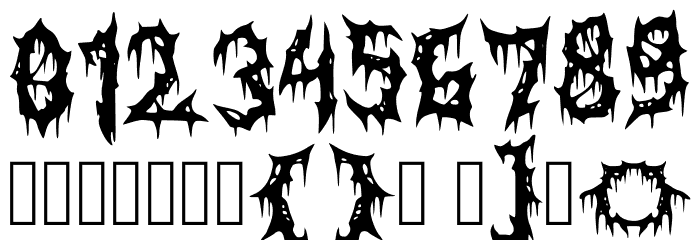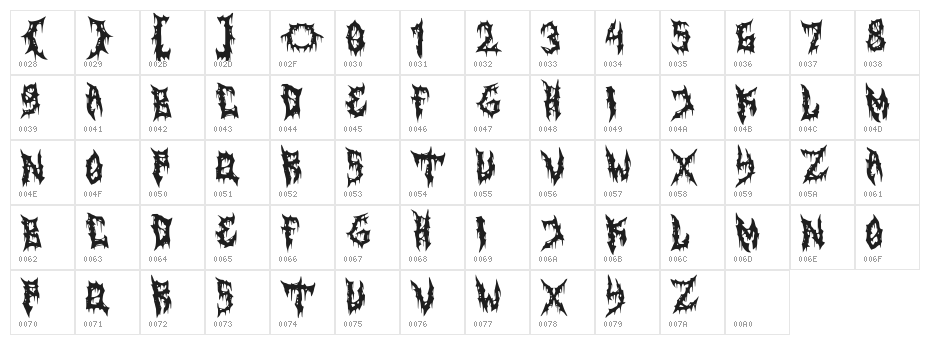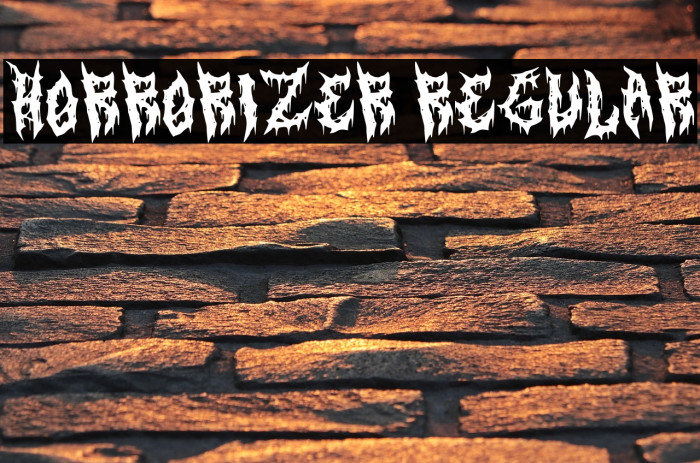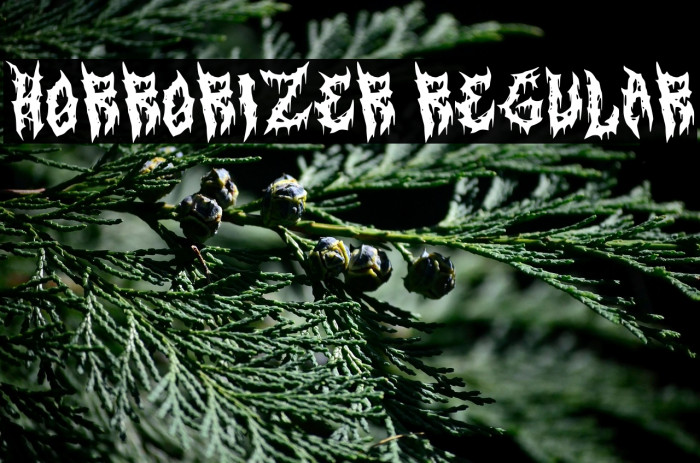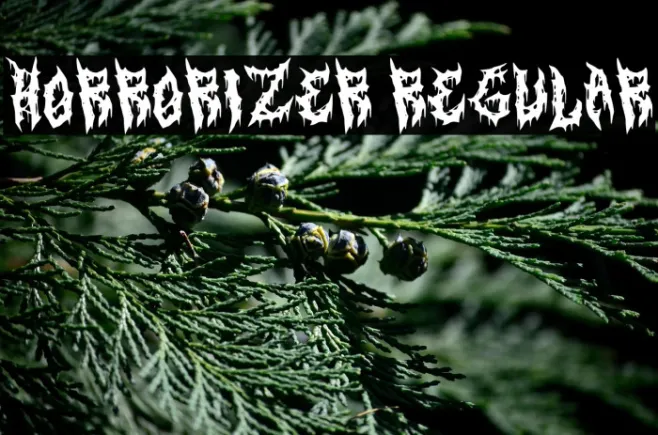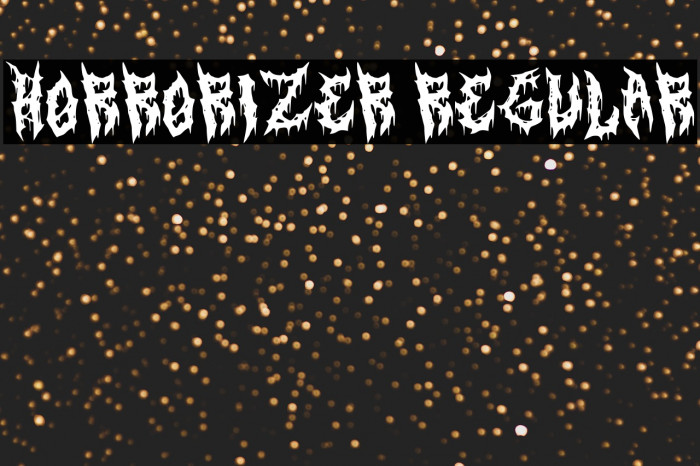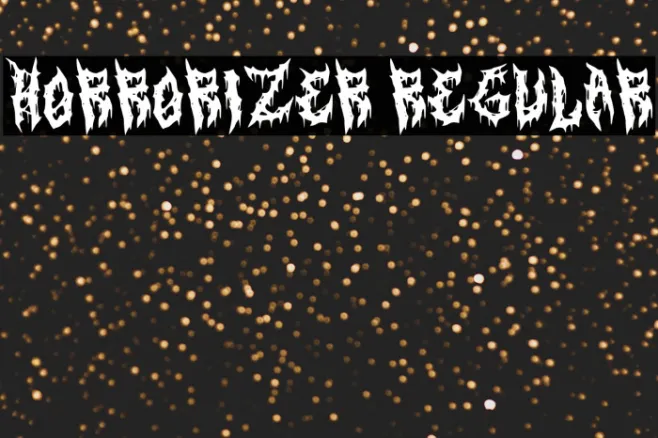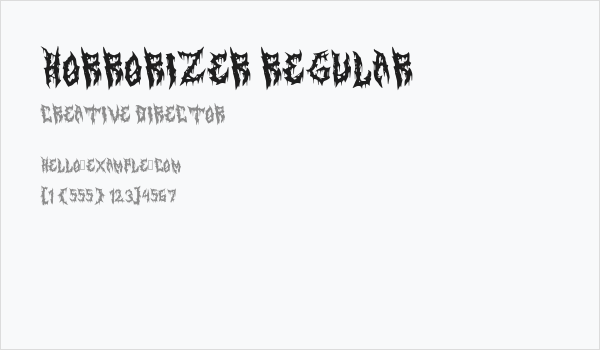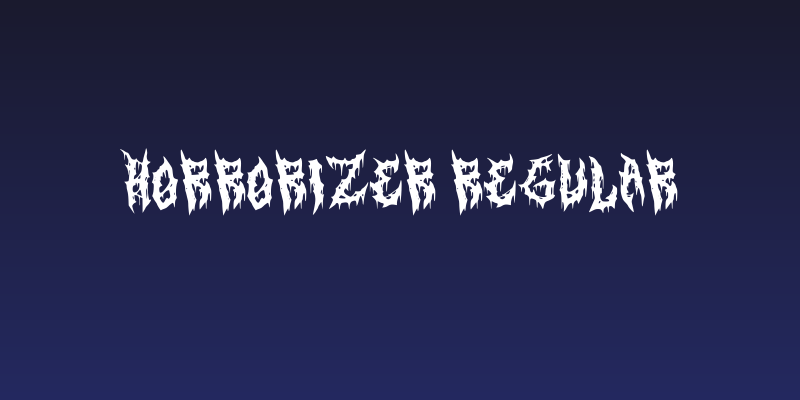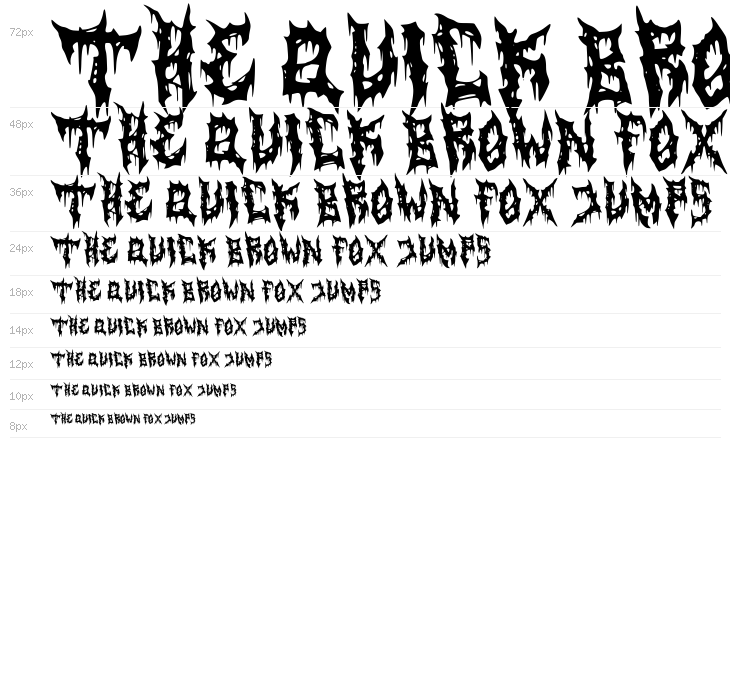
Horrorizer Regular Font
Horrorizer Regular Description
This font exudes a chilling and eerie vibe, perfect for horror-themed projects. Its jagged, irregular edges and dripping elements create a sense of unease and suspense. The characters are bold and dramatic, with a high level of detail that mimics the appearance of something decaying or melting. This font is highly decorative, making it ideal for capturing attention and setting a spooky tone. Its unique style is reminiscent of classic horror movie posters and Halloween decorations, making it a great choice for any project that requires a touch of the macabre.
| Proposed Projects | Ideal for Halloween invitations, horror movie posters, haunted house flyers, and spooky event branding. |